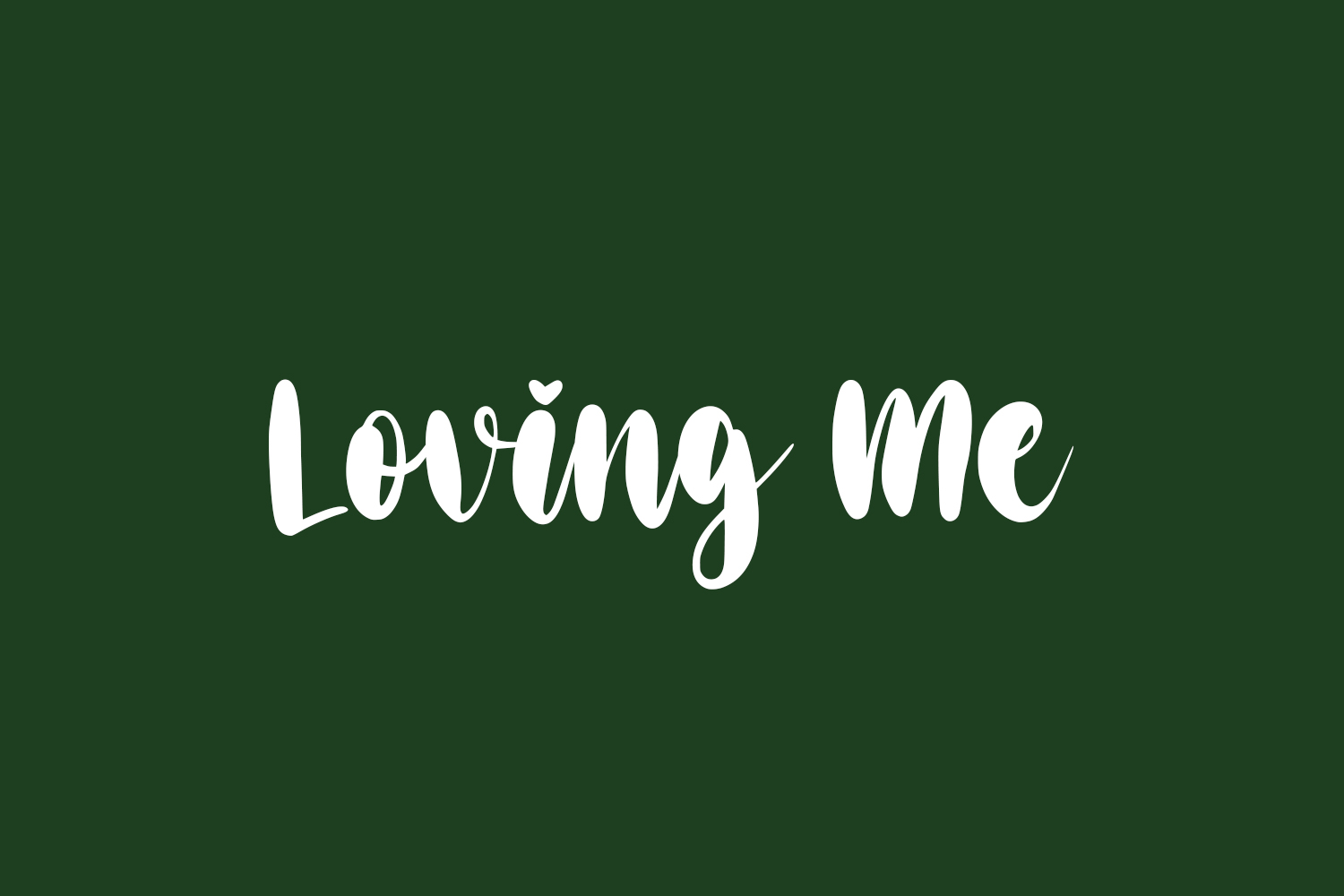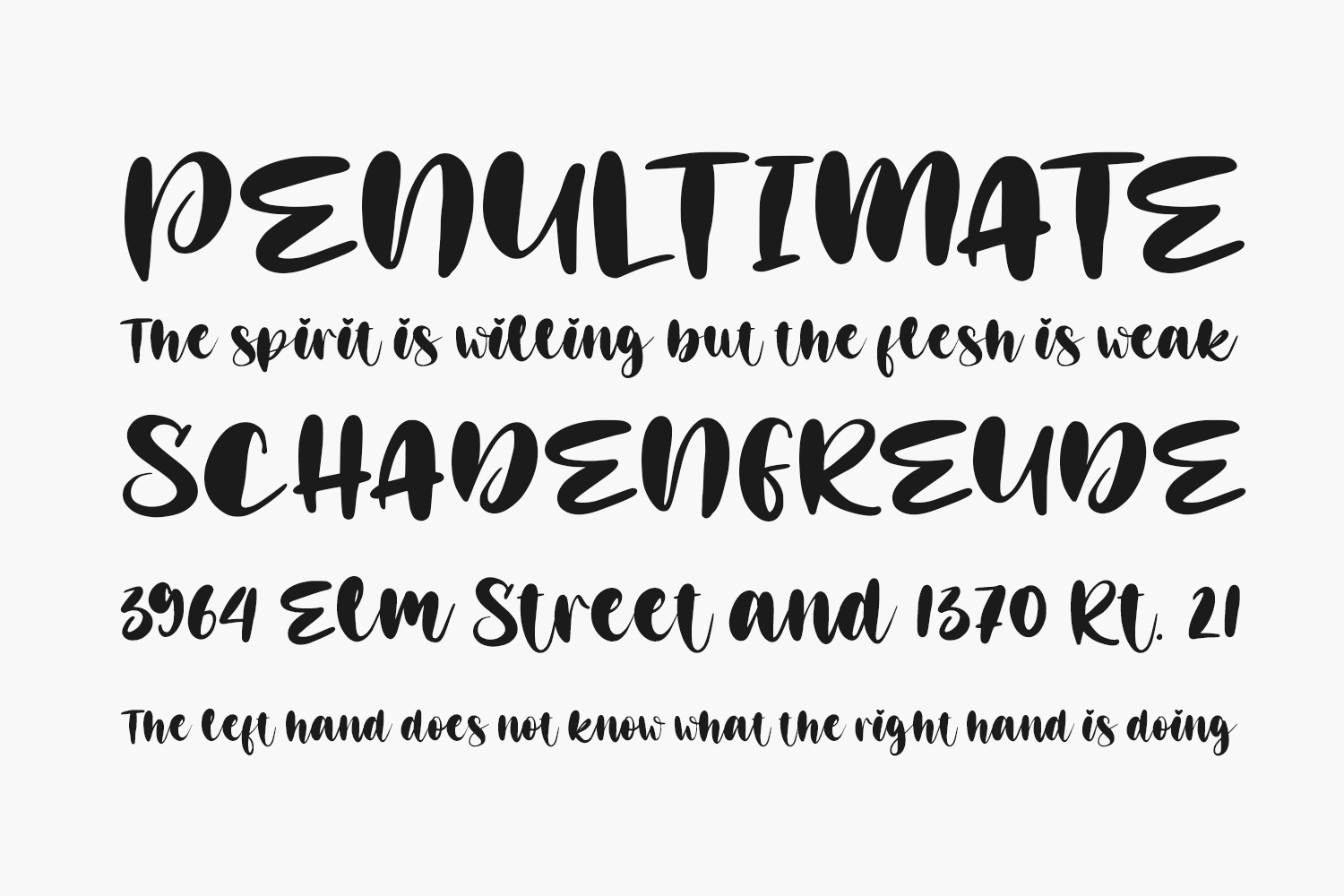
Embrace the contemporary charm of Loving Me Free Font, a stylish script font with a clean aesthetic. This soft and elegant typeface is perfect for enhancing a wide range of design concepts, infusing each project with a delightful and romantic flair. Loving Me Free Font is free for personal use only. Please purchase the full version for commercial use.
Designed by Letterara